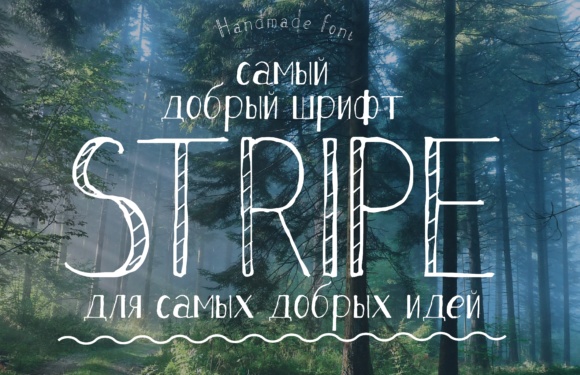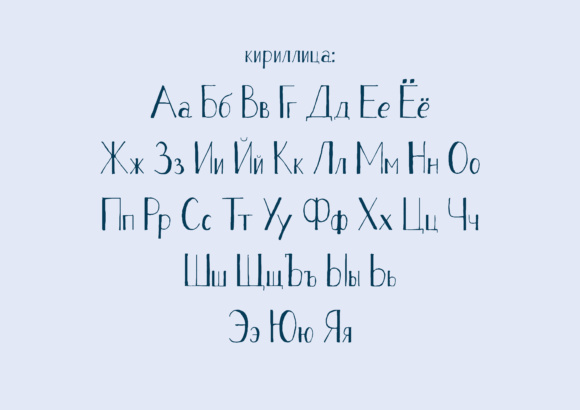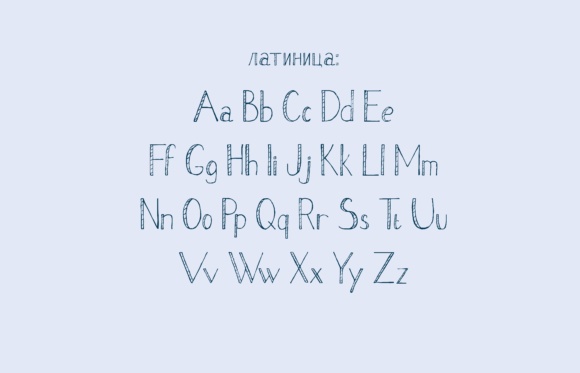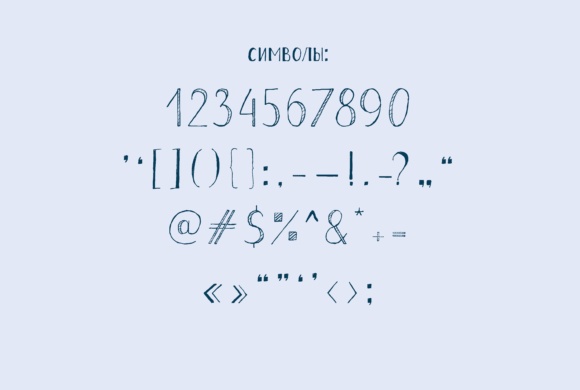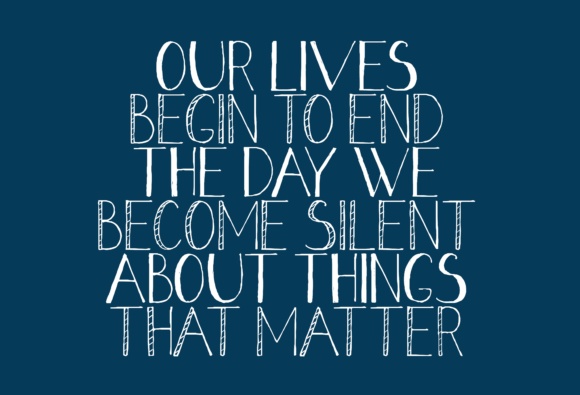
Stripe Font
About Stripe Font
Stripe is a fun, handwritten font that will give your designs a lighthearted feel! This script has friendly little details and is easy to read, so you can use it in a wide array of creative projects.